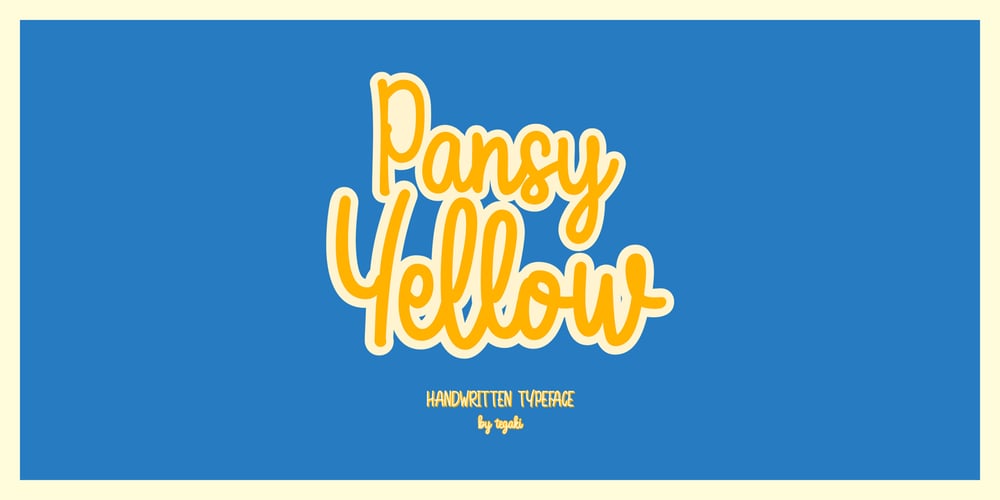
Pansy Yellow Font Family was designed by Rudi Suhairi and published by Tegaki. Pansy Yellow contains 3 styles and family package options. Introducing Pansy Yellow โ a Modern Script Handwritten font that’s both chic and graceful. With its three versatile styles โ regular, extrude, and outline โ this font is designed to bring sophistication to your designs effortlessly.The regular style of Pansy Yellow font offers smooth and flowing strokes, perfect for adding a touch of modern elegance to wedding invitations, branding, and social media posts.For an extra dimension, try the extrude style. It adds depth to each character, making them pop off the page. Ideal for logos and headlines, it’s sure to catch the eye.The outline style features delicate lines that give your designs a unique flair. It’s great for posters, book covers, and projects that need a standout look.No matter the project, Pansy Yellow font will help your work stand out. Let your creativity shine with this font’s contemporary elegance.